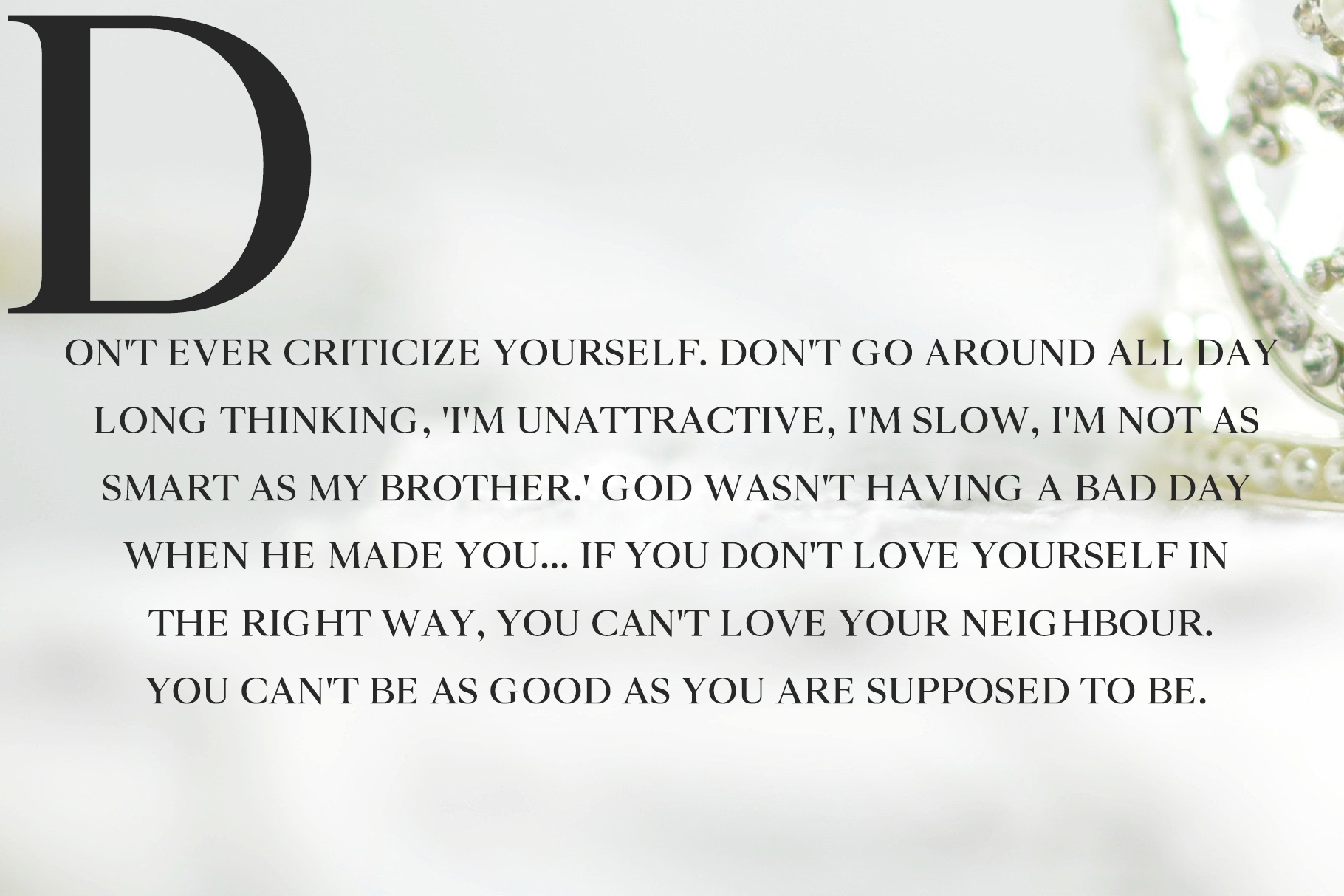
Wensley is a creative modern serif font with a high-class appeal. This font includes tons of glyphs, and pairs beautifully with script fonts and calligraphy styles.